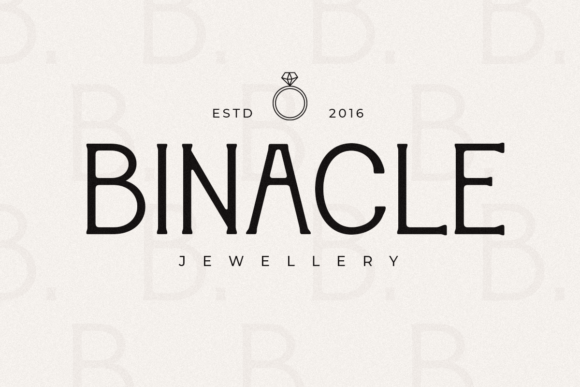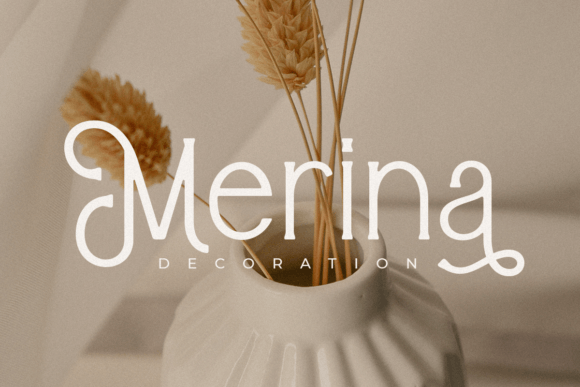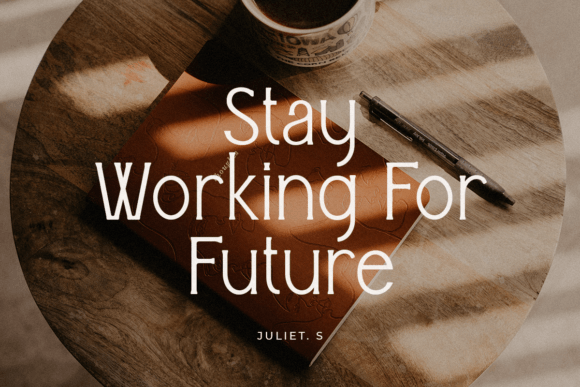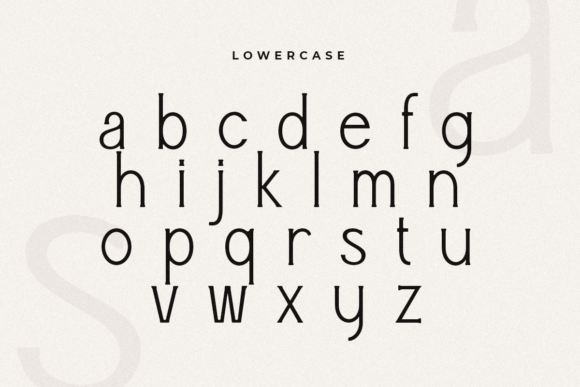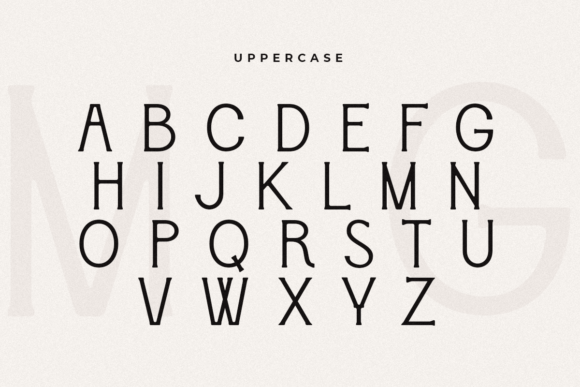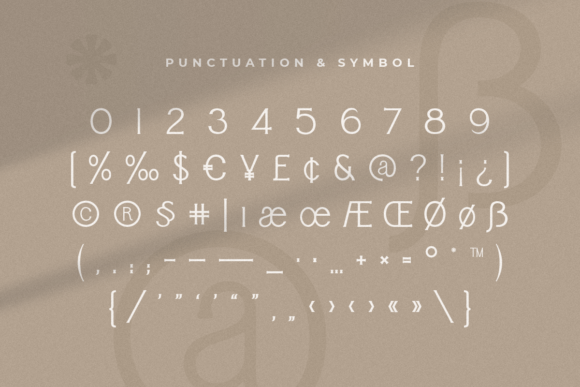
Introducing Flamboyan Font: Elevate Your Designs with Elegance and Boldness
Are you on the lookout for a font that exudes elegance, boldness, and versatility? Look no further than Flamboyan Font! This stunning serif font is perfect for designers and crafters seeking to add a touch of sophistication to their creations. With its incredibly versatile style, Flamboyan Font is ideal for a wide range of projects, from wedding invitations and stationery art to social media posts and more.
The Characteristics of Flamboyan Font
Flamboyan Font boasts a unique blend of elegance and boldness, making it an excellent choice for designers who want to make a statement. Its serif design adds a touch of classic sophistication, while its bold lines ensure that your text stands out from the crowd. Whether you’re creating a formal wedding invitation or a bold social media post, Flamboyan Font is sure to impress.
Uses for Flamboyan Font
The versatility of Flamboyan Font is one of its most significant advantages. Here are just a few ideas for how you can use this incredible font:
- Wedding Invitations: Create beautiful, elegant wedding invitations that set the tone for a sophisticated and memorable event.
- Stationery Art: Add a touch of elegance to your stationery art, including greeting cards, thank-you cards, and more.
- Social Media Posts: Make your social media posts stand out with Flamboyan Font’s bold and eye-catching design.
- Logos and Branding: Use Flamboyan Font to create a unique and memorable logo for your business or brand.
- Packaging Design: Add a touch of sophistication to your packaging design with Flamboyan Font.
Why Choose Flamboyan Font?
With so many fonts available, why choose Flamboyan Font? Here are just a few reasons why designers and crafters love this incredible font:
- Unique Design: Flamboyan Font boasts a unique and distinctive design that sets it apart from other fonts.
- Versatility: This font is incredibly versatile, making it suitable for a wide range of projects and applications.
- Ease of Use: Flamboyan Font is easy to use and pairs well with a variety of other fonts, making it simple to incorporate into your designs.
- High-Quality: This font is of exceptionally high quality, ensuring that your designs look professional and polished.
Tips for Using Flamboyan Font
To get the most out of Flamboyan Font, here are a few tips to keep in mind:
- Experiment with Sizes: Don’t be afraid to experiment with different font sizes to find the perfect balance for your design.
- Pair with Other Fonts: Flamboyan Font pairs well with a variety of other fonts, so don’t be afraid to get creative and try out different combinations.
- Use for Headings: Flamboyan Font is perfect for headings and titles, so use it to add a touch of elegance and sophistication to your designs.
- Keep it Simple: Don’t overcomplicate your design – Flamboyan Font is stunning on its own, so keep your design simple and let the font shine.
| Font Name | Flamboyan Font |
| Author | sensatype |
Flamboyan Font is an exceptional serif font that offers a unique blend of elegance, boldness, and versatility. Whether you’re a designer or crafter, this font is sure to become a favorite in your collection. With its wide range of uses, ease of use, and high-quality design, Flamboyan Font is the perfect choice for anyone looking to elevate their designs and add a touch of sophistication. So why wait? Fall in love with Flamboyan Font today and start creating stunning designs that will leave a lasting impression!